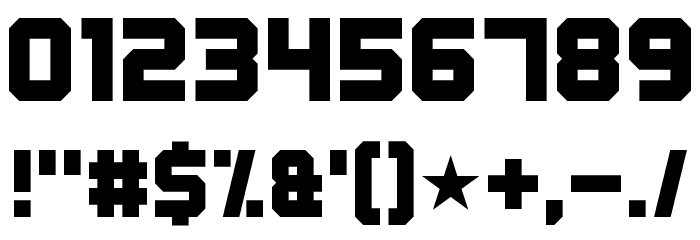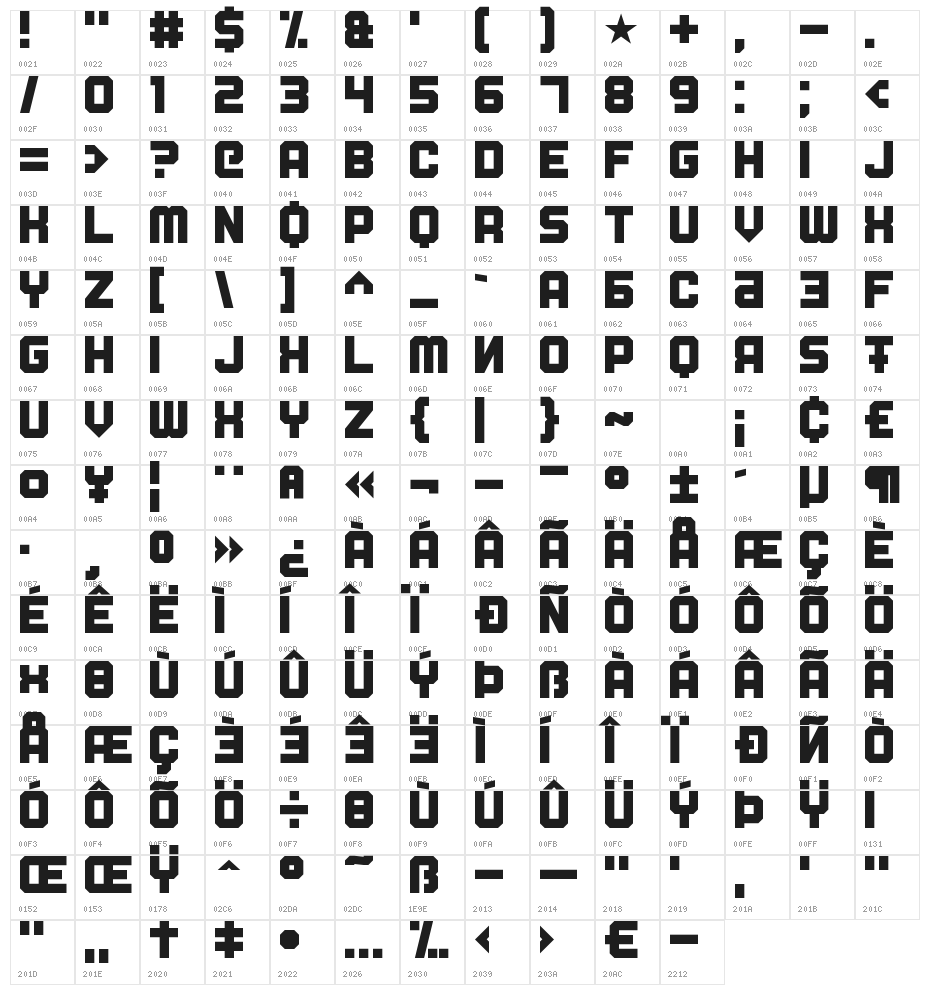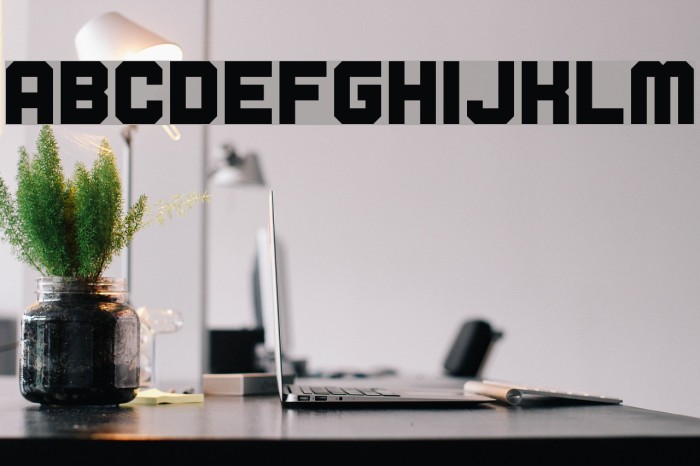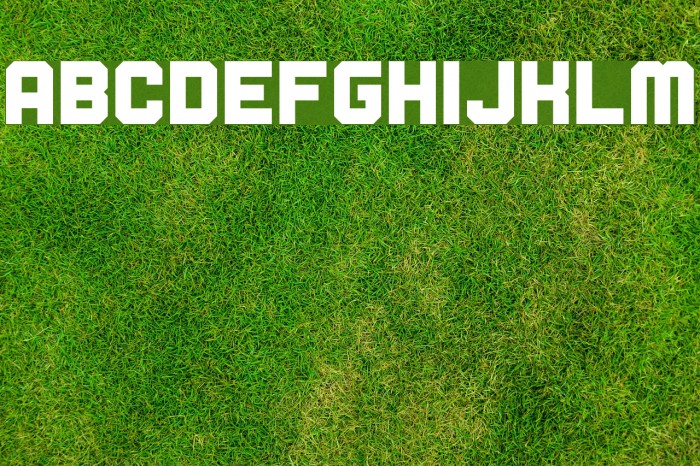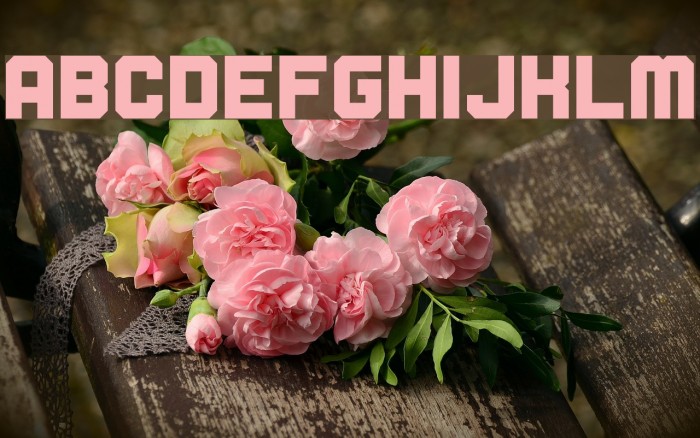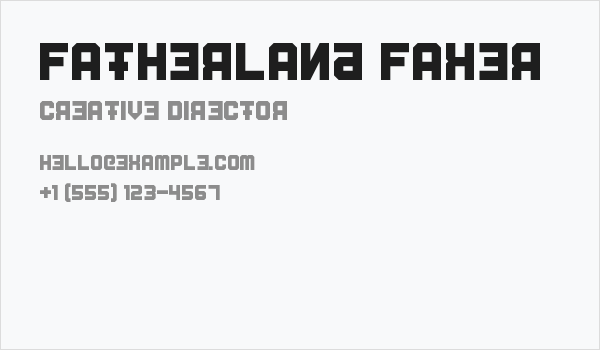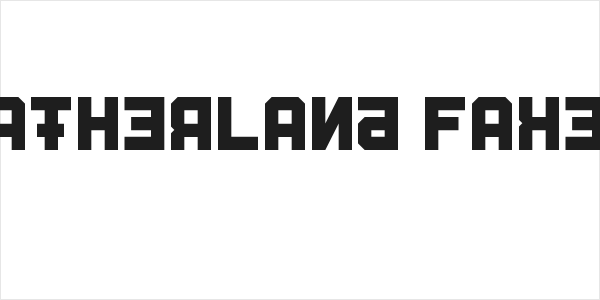
Fatherland Faker Font
Fatherland Faker Description
This font features a bold, geometric design with a strong, impactful presence. The characters are constructed with thick, uniform strokes, creating a sense of solidity and strength. The angular edges and straight lines give it a modern, industrial feel, while the consistent stroke width maintains a clean and organized appearance. The font's uppercase and lowercase letters are distinct and easily readable, making it suitable for attention-grabbing headlines. The numerals and special characters are designed to match the bold style, ensuring consistency across all text elements.